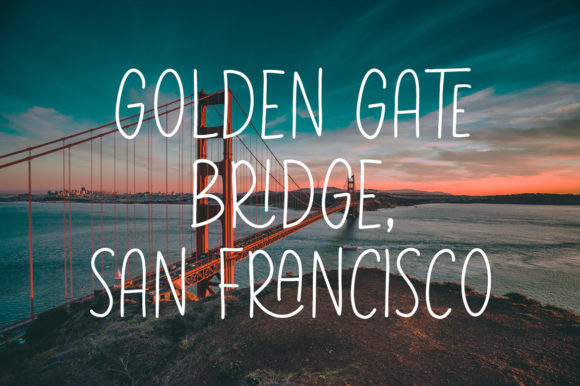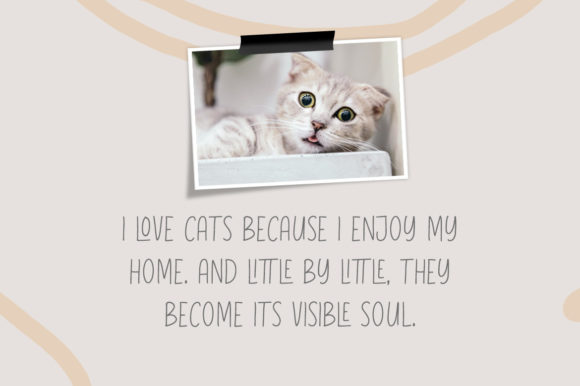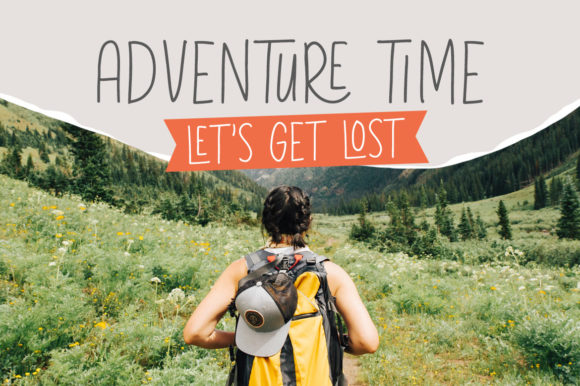
Introduction to Romeland Font
As I stood in my cluttered studio, surrounded by scraps of paper and abandoned projects, I stumbled upon a vintage chalkboard that had been collecting dust in the corner. I picked it up, and with a few swift strokes of my brush, a simple quote began to take shape. The rough texture and authentic look of the chalkboard brought my design to life, and I knew right then that I needed a font to match its rustic charm. Enter Romeland Font, a delightful and versatile handwritten font that has become my go-to for all my creative projects.
For designers like myself, Romeland Font is a valuable addition to our design resources. Its high-quality, authentic look adds a personal touch to our designs, making them stand out from the crowd. Whether you’re creating chalkboard quotes, teaching materials, or simply looking for a unique font to spice up your creative project, Romeland Font is an excellent choice.
One of the best things about Romeland Font is its ease of use. With PUA encoding, accessing all the glyphs and swashes is a breeze, making it perfect for designers who want to add a professional touch to their work without the hassle of complicated font management. And the best part? Romeland Font is available for free download, making it a must-have for any design enthusiast.
Key Features of Romeland Font
- High-quality design resource for creative projects, ideal for use in logos, branding, and digital art.
- Unique, elegant design with a transparent background, allowing for flexibility and customization.
Honest Review: Romeland Font
I recently came across the Romeland Font and was excited to give it a try. As a designer, I’m always on the lookout for high-quality design resources that can elevate my creative projects. Romeland Font definitely delivers.
What works well: ✨ The font is incredibly versatile, suitable for a wide range of design applications, from digital interfaces to print materials. The sleek and modern design aesthetic is perfect for creating a professional look and feel.
✨ The font also features a transparent background, making it easy to overlay on top of other design elements. This is a huge time-saver and adds to the overall ease of use.
✨ And the best part? The Romeland Font is available for free download, making it an excellent addition to any designer’s toolkit.
Limitations: ⚠️ While the Romeland Font is an excellent design resource, it may not be suitable for projects that require a more traditional or vintage aesthetic.
Overall, I’m thoroughly impressed with the Romeland Font. It’s a high-quality design resource that is perfect for any creative project. I highly recommend giving it a try.
- High-quality design aesthetic
- Versatile and suitable for various design applications